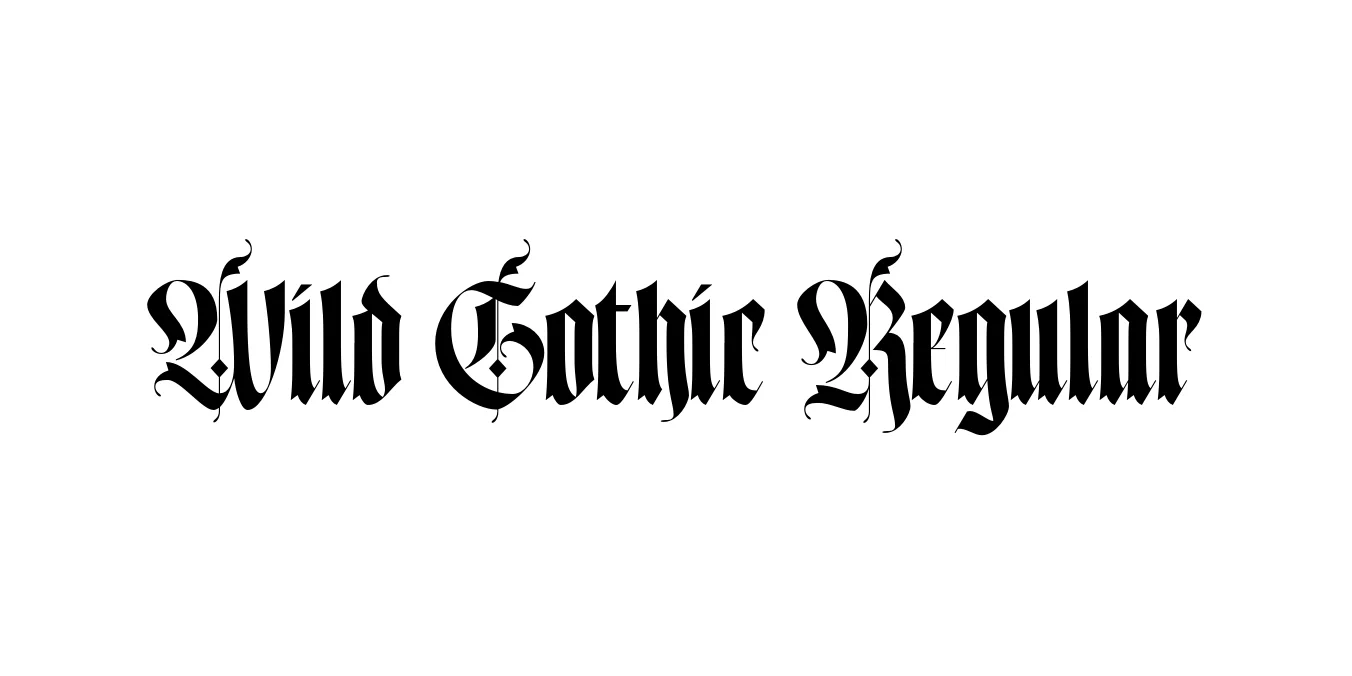
Wild Gothic Regular
Designed by Graphic Fresh
| Font Name | Wild Gothic |
| Category | Blackletter |
| Designer | Graphic Fresh |
| Similar Fonts | Cloister Black, Old English, Gothische, Bastarda |
Wild Gothic Regular is a contemporary take on classic blackletter typography, blending traditional medieval aesthetics with modern urban grit. Developed for high-impact visual communication, the font features sharp, aggressive strokes and a dense vertical rhythm that demands attention. Its design captures the raw energy of street culture, making it a standout choice for projects that require an edgy, rebellious character without sacrificing the legibility expected of modern display faces.
Since its release, the font has become a favorite among graphic designers specializing in the music and apparel industries. Its bold, intricate letterforms are particularly effective in display branding and large-scale applications where a sense of power and history is needed. Whether used for a heavy metal band's logo or a high-end streetwear label, Wild Gothic Regular provides a sophisticated yet rugged texture that elevates any creative composition into a professional piece of art.
Wild Gothic Regular Best Uses
Perfect for oversized streetwear graphics, t-shirts, and hoodies.
Ideal for creating edgy, high-impact logos and identity systems.
Great for metal or hip-hop album covers and band merchandise.
Works well for aggressive, stylised headlines in niche magazines.
A popular choice for digital lettering mockups and tattoo flash.